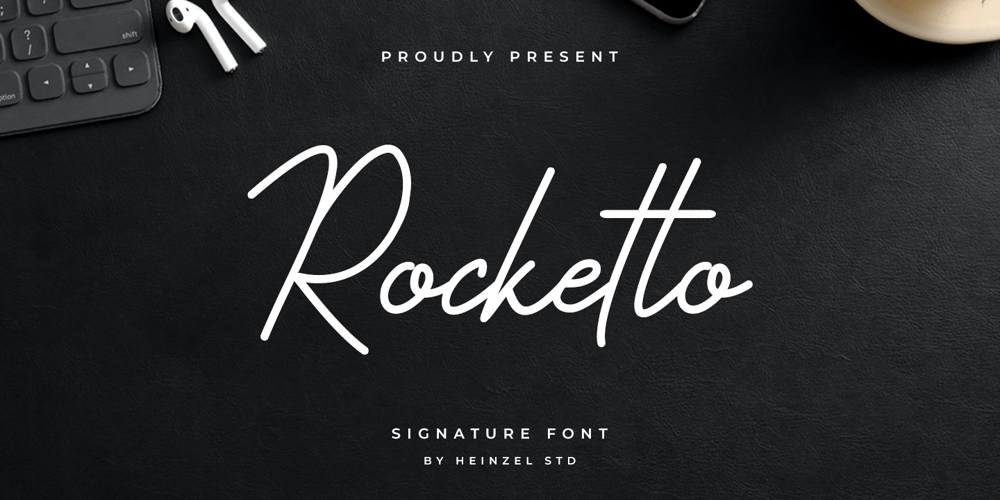
Rocketto Font Family was designed by Nofi Sofyan Hadi and published by Heinzel Std. Rocketto contains 2 styles and family package options. Rocketto is a magical handwritten font carefully created with a touch of elegance. It will elevate a wide range of design projects to the highest level, be it branding, headings, wedding designs, invitations, signatures, logos, labels, and much more!